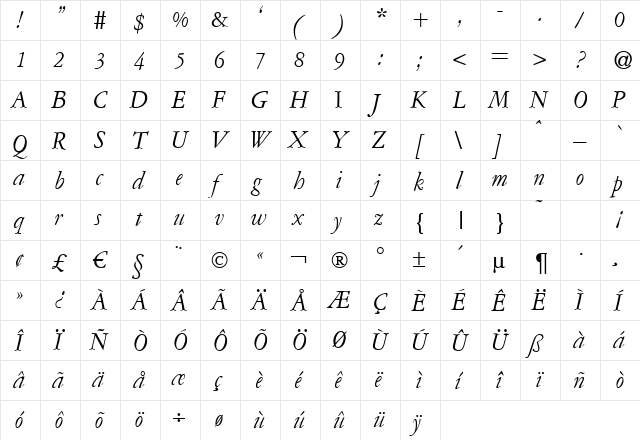
A771-Roman Italic Font Preview
A771-Roman Italic
A771-Roman Italic Font Details
Design Context for A771-Roman Typeface
A771-Roman offers clean, dependable letterforms without strong stylistic allegiance, making it a practical choice for designers who need flexibility. The slanted form adds forward momentum and visual energy.
Pro Tip: Try A771-Roman for annotation and caption copy alongside an upright companion — the contrast in angle creates a dynamic but ordered typographic system.